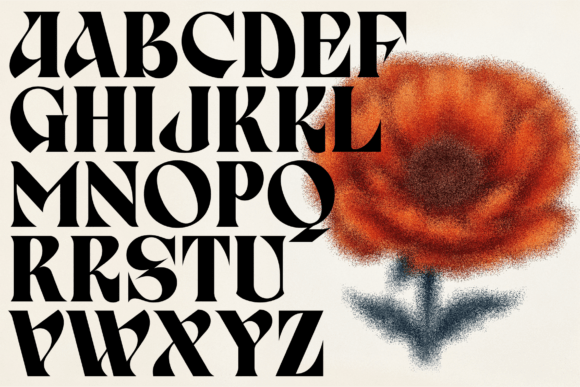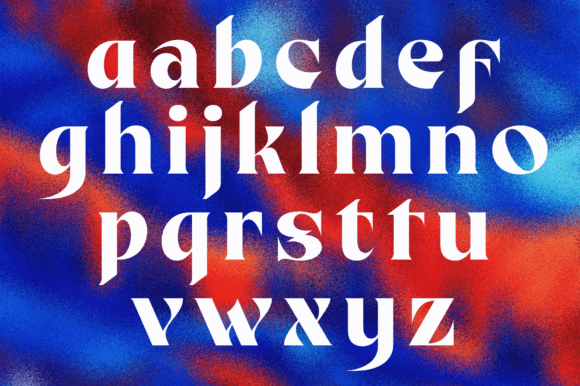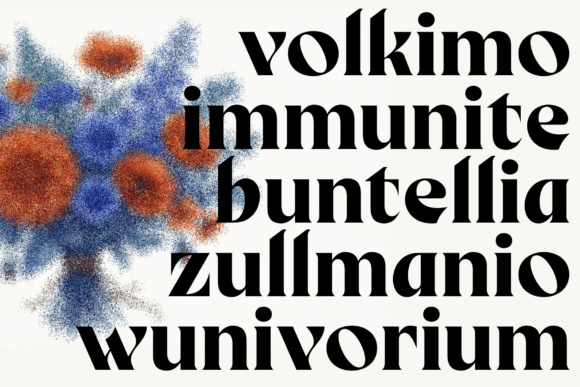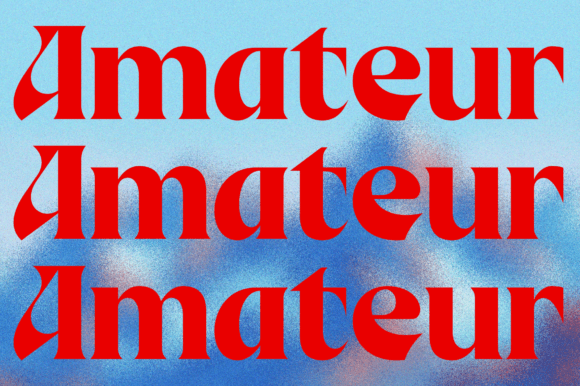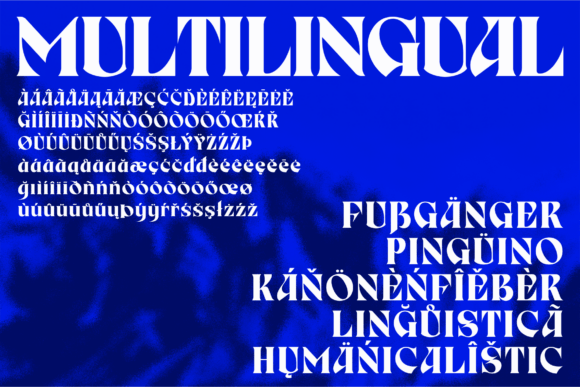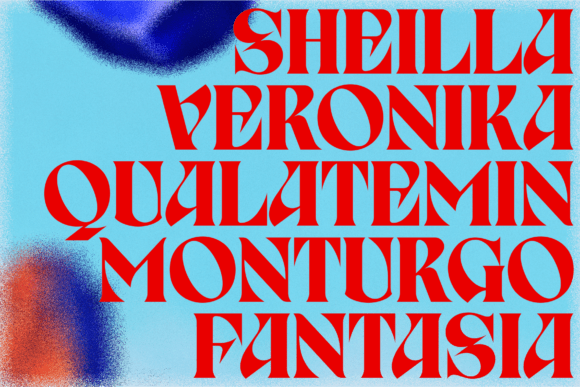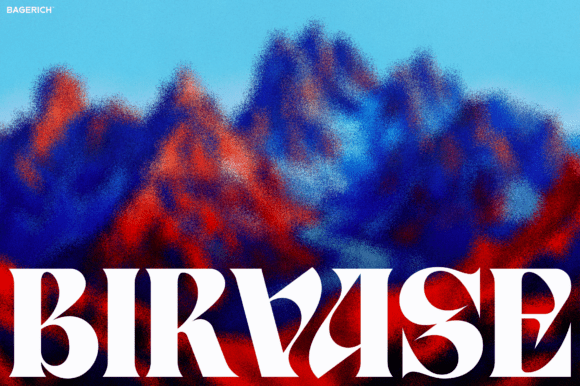
Introducing Birvase Font: The Epitome of Elegance and Avant-Garde Flair
In the realm of typography, few fonts manage to strike a balance between traditional elegance and modern geometric sophistication. Birvase Font, however, achieves this feat with remarkable finesse. This high-impact display font is designed to bridge the gap between classic serif refinement and avant-garde flair, making it an exceptional choice for brands aiming to convey strength, adventure, and luxury.
The Unique Architecture of Birvase
One of the standout features of Birvase Font is its unique architectural design, particularly noticeable in the letters “V” and “A”. These characters interlock with a fluid, liquid-like grace that sets Birvase apart from other fonts. This distinctive feature not only adds a dynamic and modern touch but also infuses the text with a rhythmic, almost musical flow. The result is a font that commands attention and exudes a sense of monumental energy.
Ideal Applications for Birvase Font
Birvase Font is incredibly versatile, making it suitable for a wide range of applications. Its high-impact design and elegant flow render it perfect for:
- High-Fashion Editorial Spreads: Add a touch of sophistication and glamour to fashion editorials with Birvase’s refined yet avant-garde aesthetic.
- Cinematic Posters: Elevate movie posters with a font that exudes strength, adventure, and high-end appeal.
- Luxury Packaging: Enhance luxury product packaging with a font that communicates exclusivity and premium quality.
- Experimental Branding: Give your brand an edge with Birvase’s unique and memorable typography.
Design Characteristics of Birvase
Birvase Font boasts several design characteristics that make it a standout choice for designers:
- Serif Elegance: Despite its modern flair, Birvase retains traditional serif elements that lend it an air of elegance and sophistication.
- Geometric Flair: The geometric design adds a contemporary and edgy feel, making it perfect for brands looking to make a bold statement.
- Tactile, Monumental Energy: Each character in Birvase is designed to make a lasting impression, providing a sense of monumentality to any layout.
- Versatility: Whether used in towering headlines or minimalist designs, Birvase adapts seamlessly, ensuring it always makes an impact.
Why Choose Birvase Font?
For designers and brands seeking a font that embodies both strength and sophistication, Birvase Font is an unparalleled choice. Its ability to merge traditional elegance with avant-garde design elements makes it highly versatile and impactful. Here are a few reasons why Birvase stands out:
- Unique Identity: Birvase offers a distinctive look that can help brands differentiate themselves in a crowded market.
- High Versatility: Suitable for a wide range of applications, from digital media to print.
- Elegant and Bold: Strikes the perfect balance between elegance and boldness, making it ideal for luxury brands and high-impact designs.
Birvase Font is more than just a typeface; it’s a statement. With its unique blend of traditional serif elegance and avant-garde geometric flair, it offers designers and brands a powerful tool to convey strength, adventure, and sophistication. Whether you’re working on a high-fashion editorial, a cinematic poster, luxury packaging, or experimental branding, Birvase provides the perfect combination of style, versatility, and impact. Elevate your designs with Birvase Font and make a lasting impression on your audience.